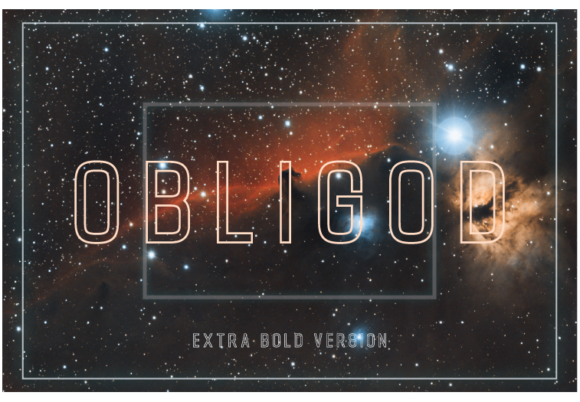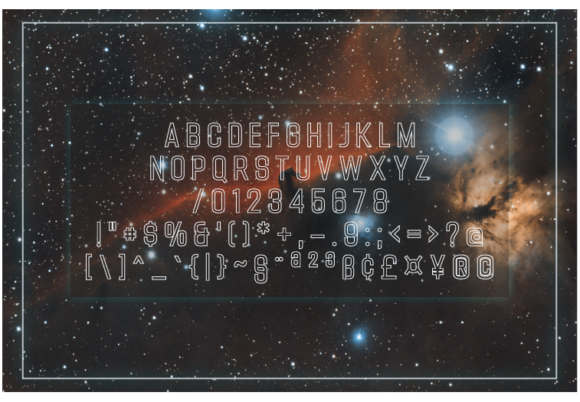
About Obligod Outline Extra Bold Font
Obligod Outline is a distinct, elegant sans serif font that blends traditional influences into a contemporary aesthetic. It will look particularly adept when used in logos, branding, packaging design, and much more.